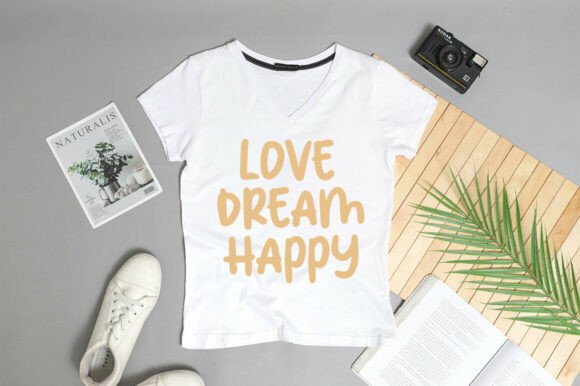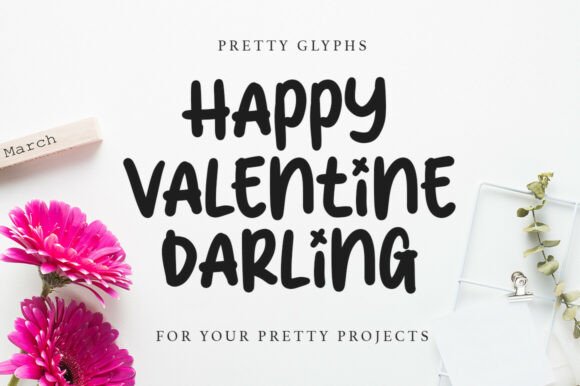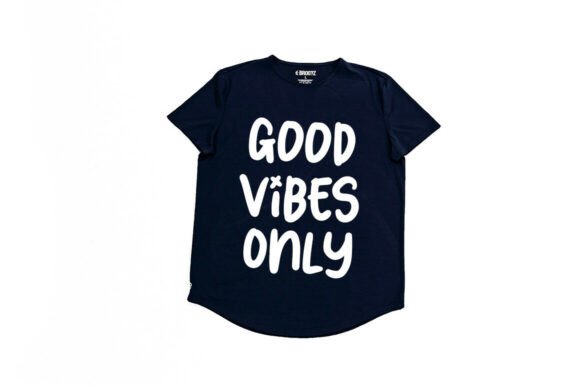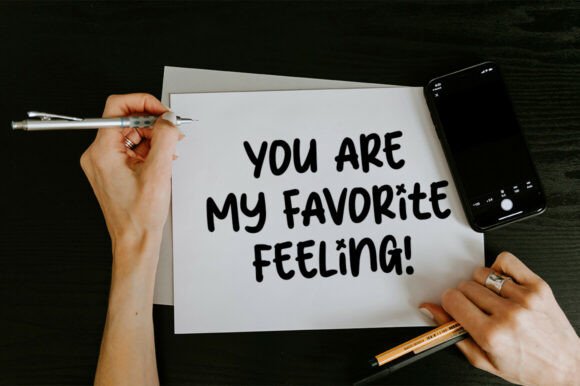
Introduction to Milky Honey Font
Milky Honey font is a sweet, approachable, and thick-weighted typeface that feels as smooth as its name suggests.
This font features soft, rounded corners and a chunky silhouette that provides excellent legibility while maintaining a friendly, โsquishyโ vibe The Milky Honey typeface is particularly effective for branding projects related to food, beauty, or lifestyle products where a sense of comfort and quality is paramount.
Key Features of Milky Honey Font